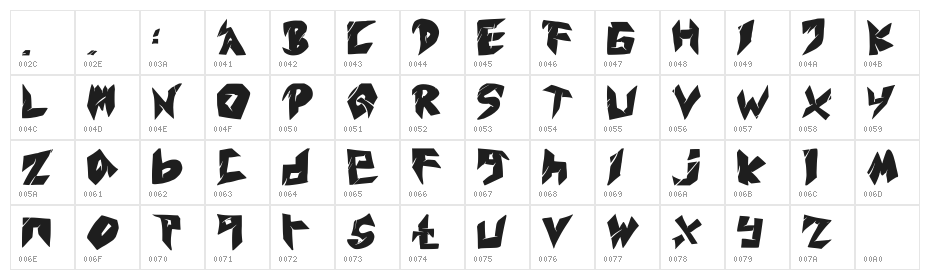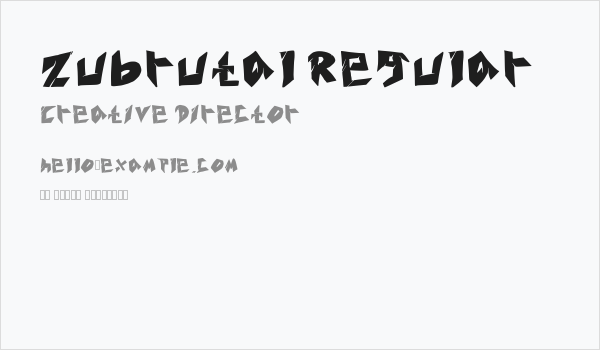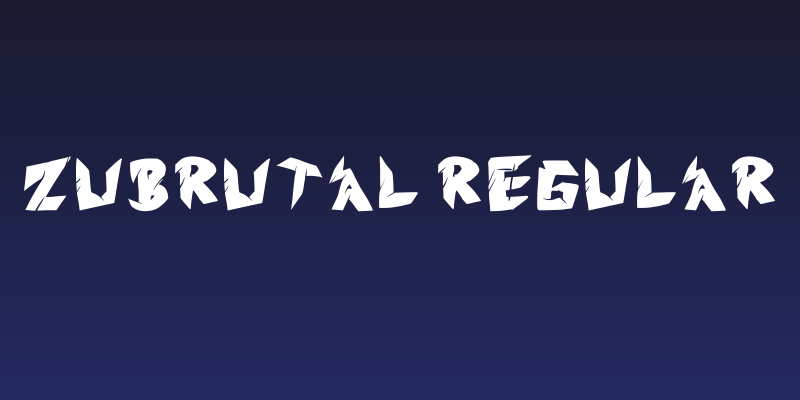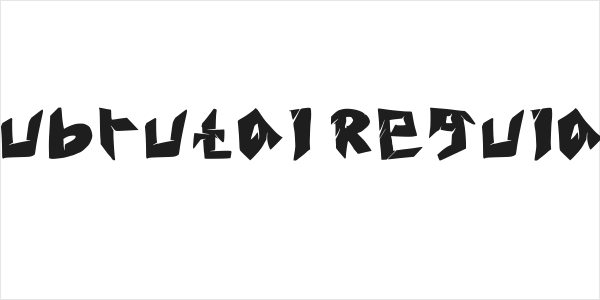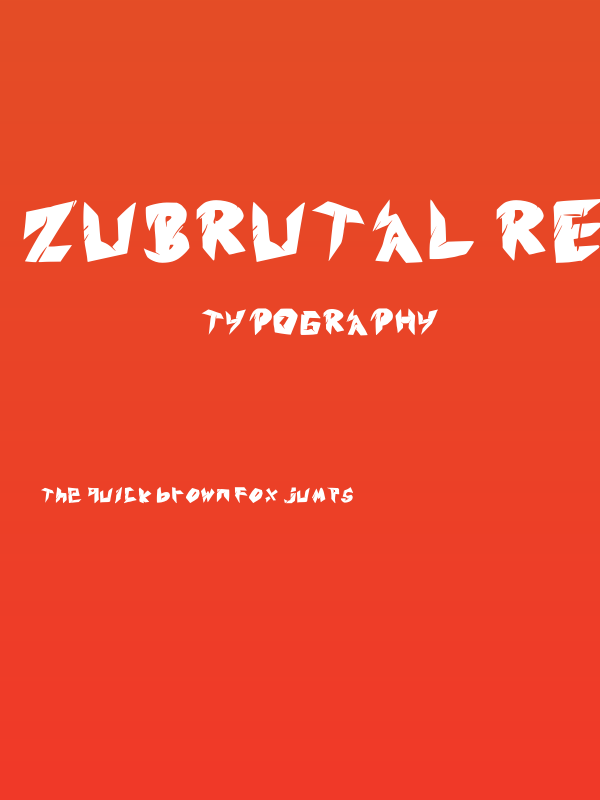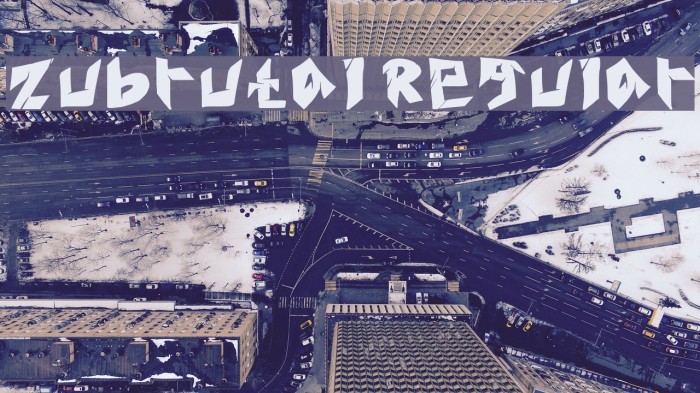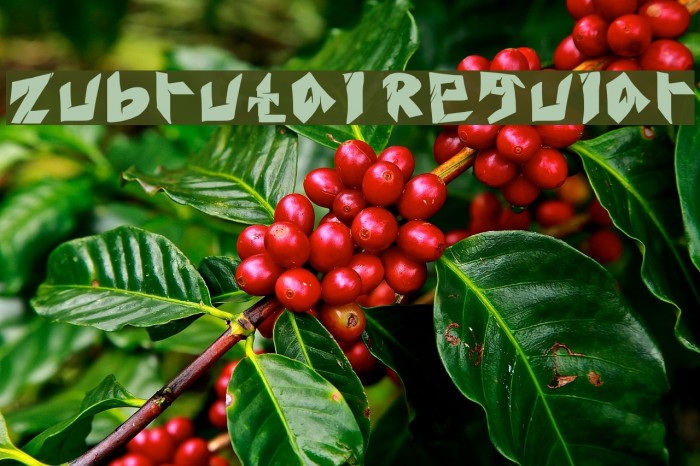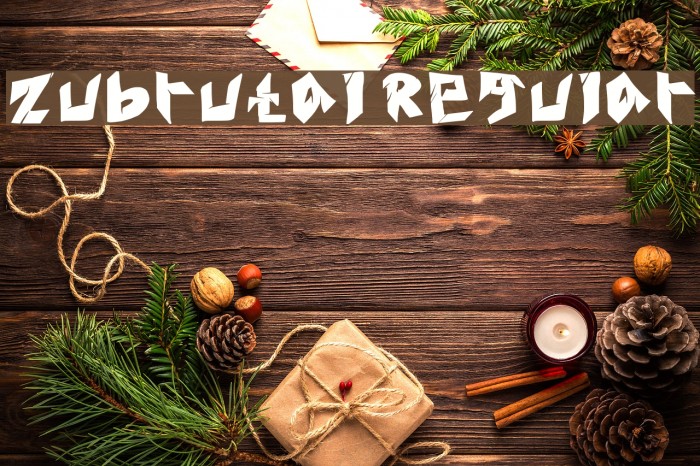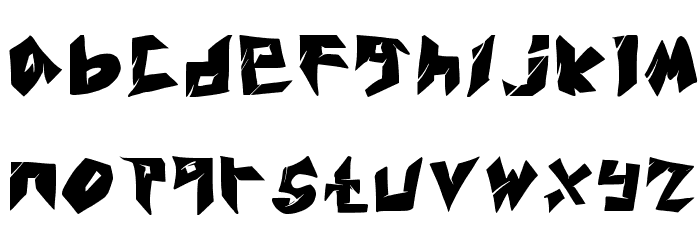
Zubrutal Regular Font
Zubrutal Regular Description
This font features a bold and aggressive design with sharp, angular edges and a distinct geometric style. Each character is crafted with a sense of movement and energy, creating a dynamic and impactful appearance. The uppercase and lowercase letters maintain a consistent style, with the uppercase being slightly more pronounced. The numbers and special characters follow the same design principles, ensuring uniformity across all elements. This font is ideal for projects that require a strong visual impact and a modern, edgy aesthetic.
| Proposed Projects | Perfect for branding, posters, album covers, and any project needing a strong, modern impact. |